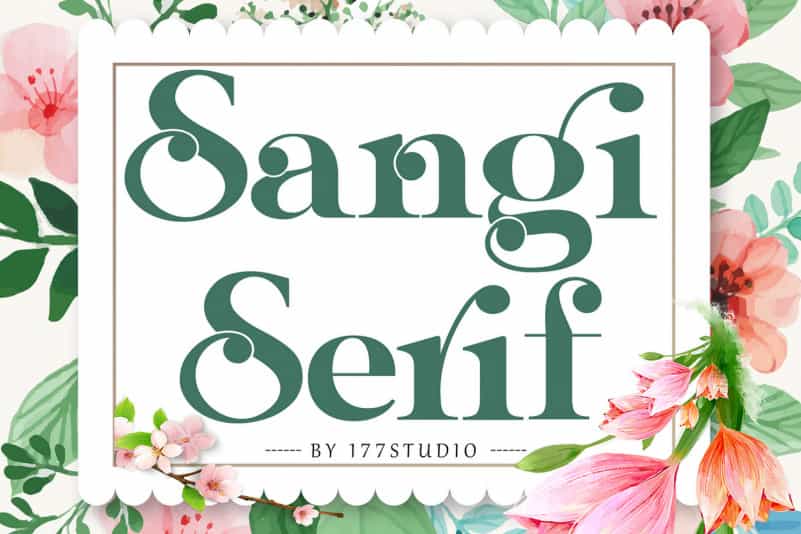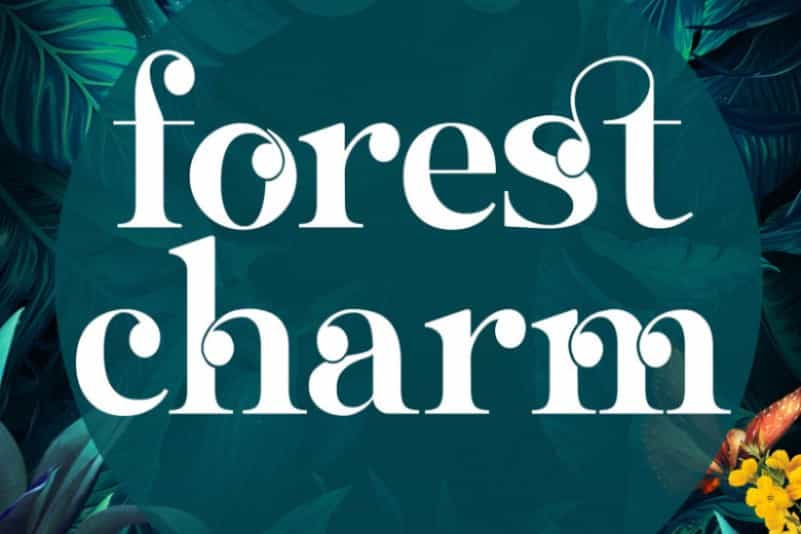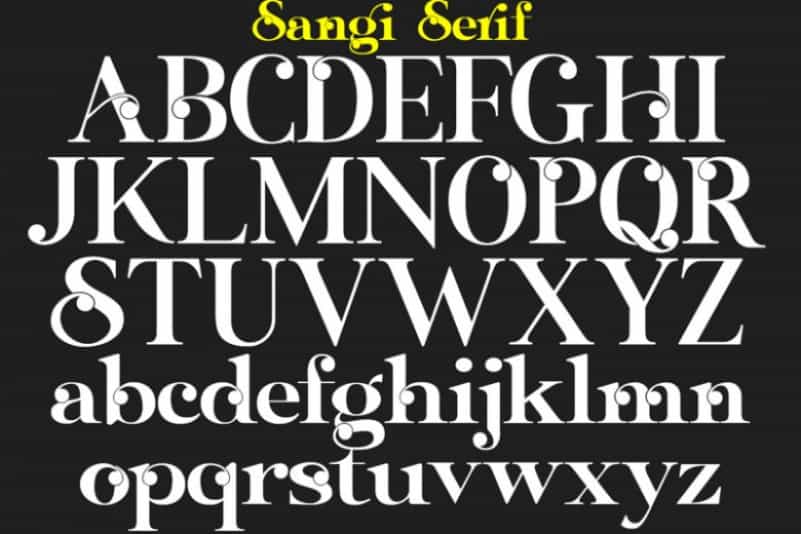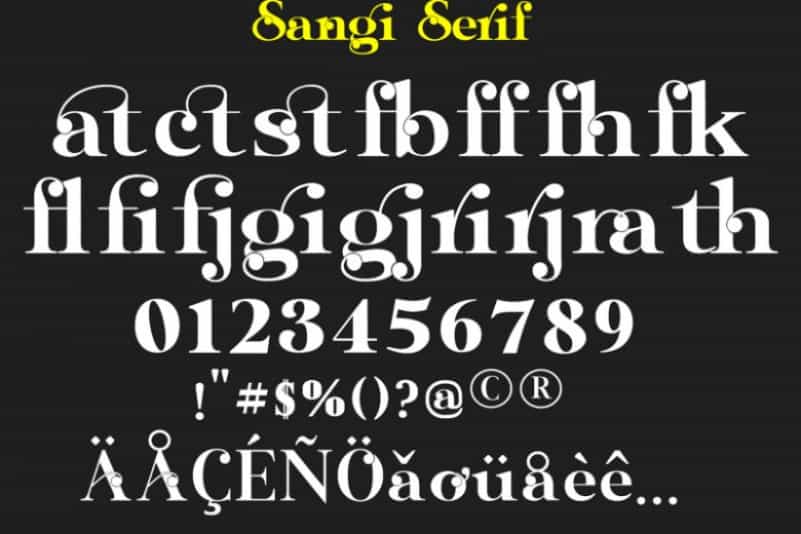
Sangi is a lower and uppercase serif typeface with well-balanced curves. The wide variety of stylistic options offers many designs and can be used for headlines, logos and packaging, posters T-shirts, Postcards and more.